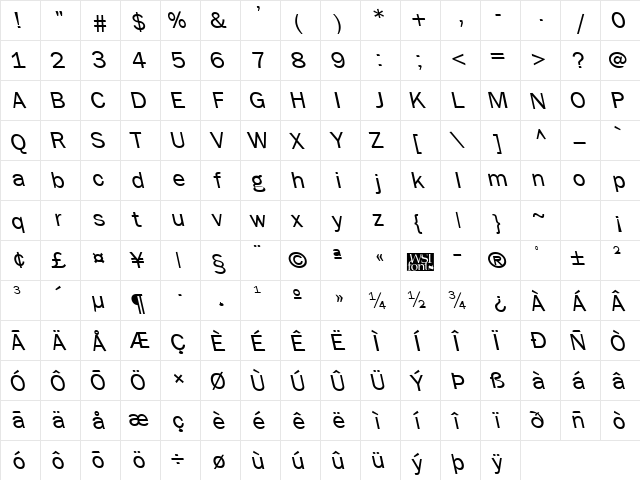
FrankfurtBackslant Regular
Design Context for FrankfurtBackslant Typeface
FrankfurtBackslant is a composed and adaptable typeface that performs quietly and consistently across a wide range of design contexts.